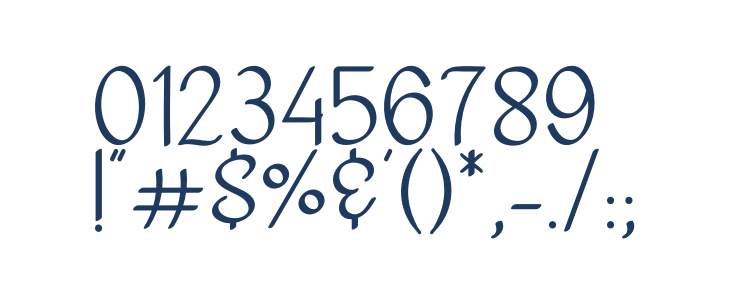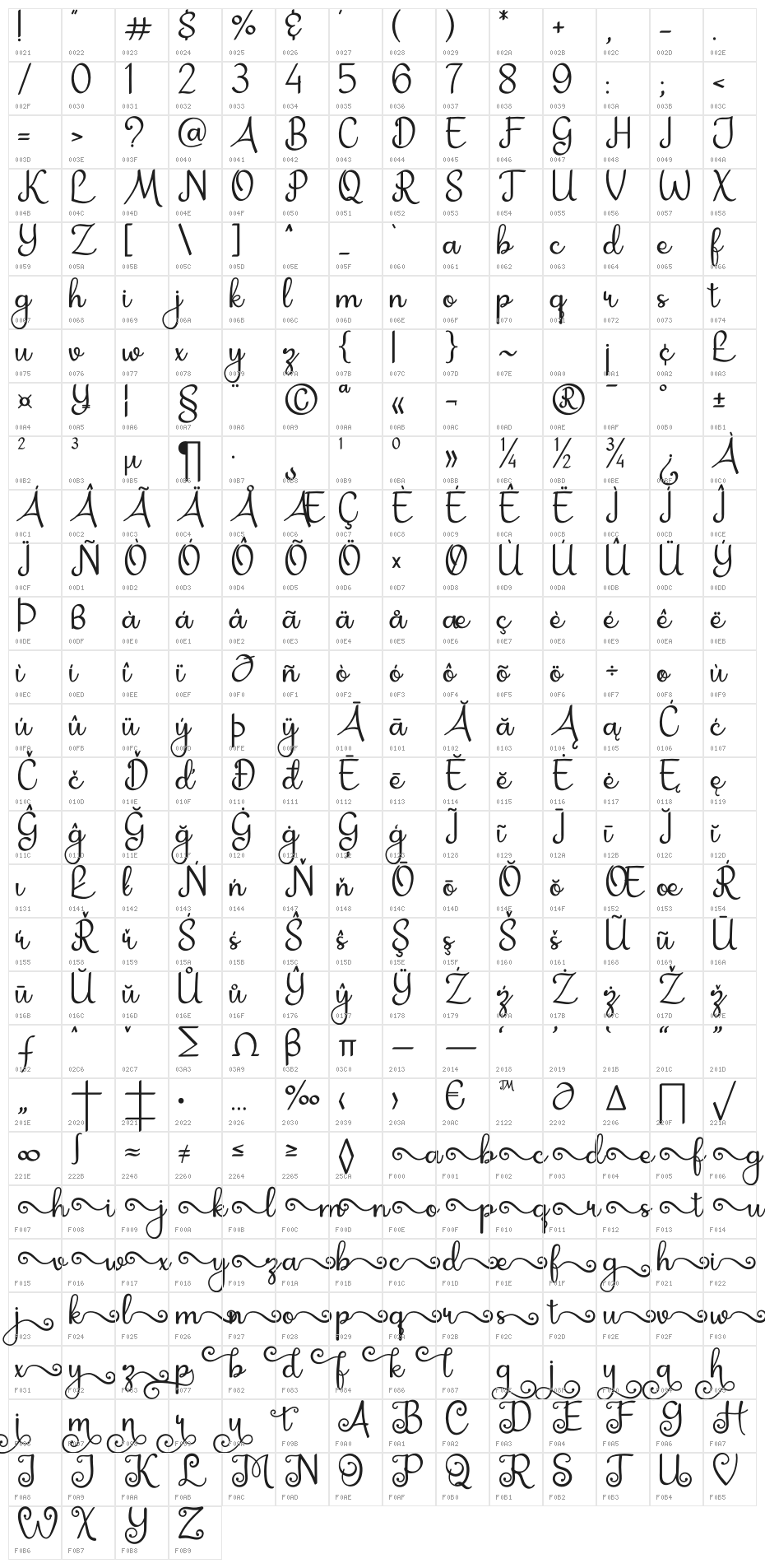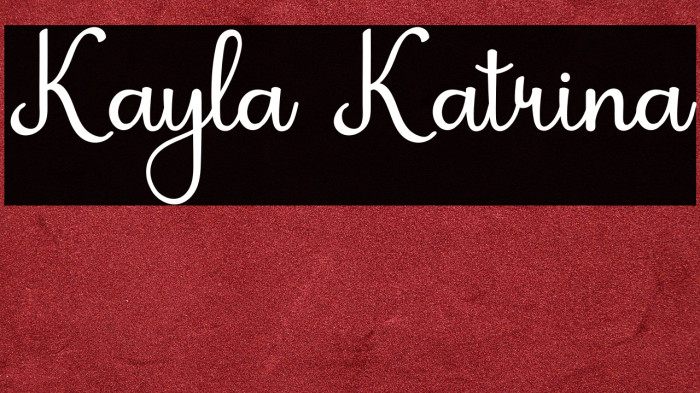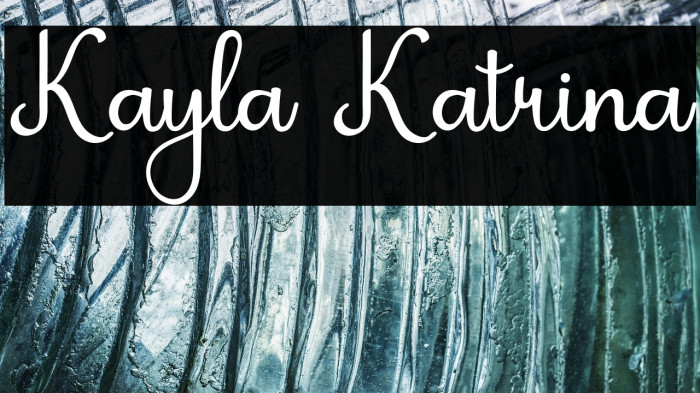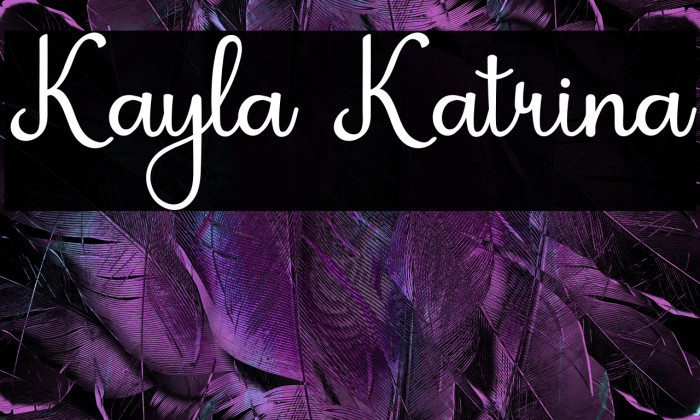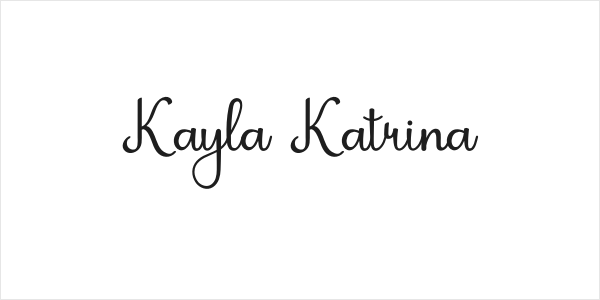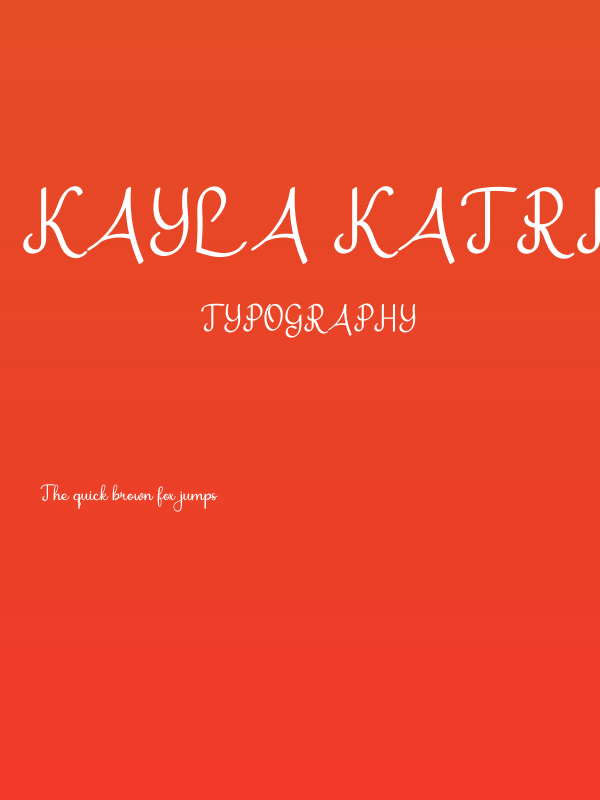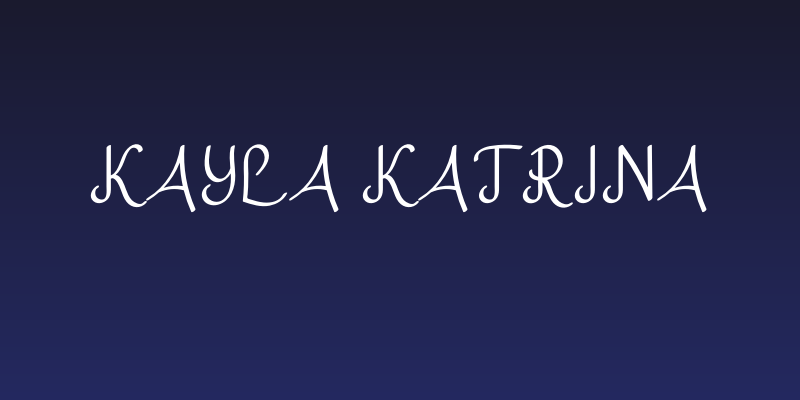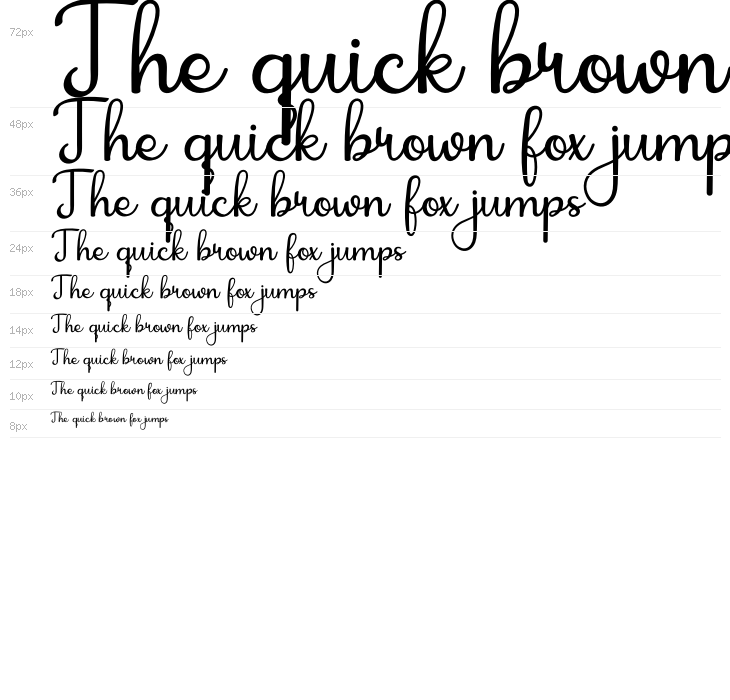
Kayla Katrina Font
Kayla Katrina Description
This font features a playful and elegant script style with a handwritten touch. The uppercase letters are slightly more structured, while the lowercase letters exhibit a flowing, cursive design. The characters are well-balanced with a consistent stroke width, giving it a harmonious appearance. The numbers and special characters maintain the same playful style, ensuring uniformity across all glyphs. This font is ideal for adding a personal and creative flair to any project, making it suitable for invitations, branding, and decorative purposes.
Use CaseLogos, Invitations, Decorative text
Proposed ProjectsIdeal for wedding invitations, branding, greeting cards, and decorative projects.